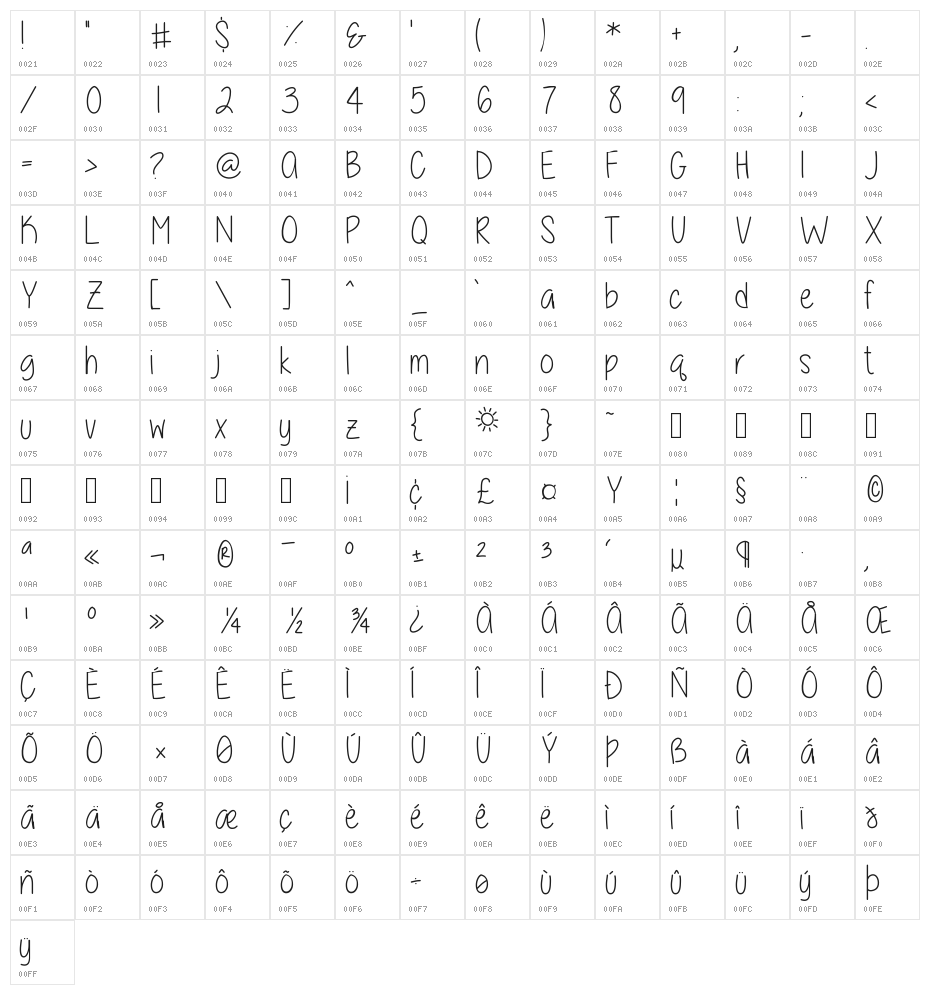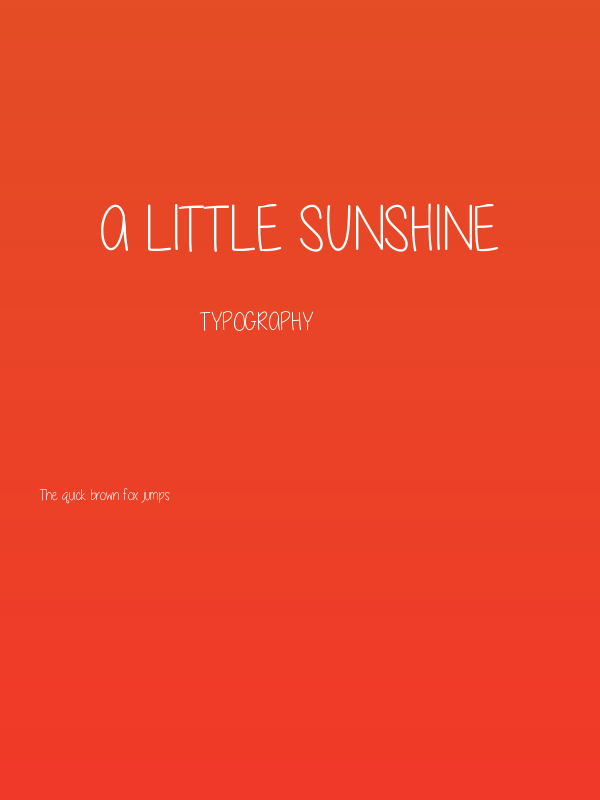
A little sunshine Font
A little sunshine Description
This playful and whimsical font features tall, narrow letters with a hand-drawn appearance. The characters have a consistent stroke width, giving them a clean and uniform look. The uppercase letters are slightly taller than the lowercase, adding a touch of elegance while maintaining a casual feel. The numbers and special characters follow the same style, ensuring a cohesive design throughout. This font is perfect for projects that require a friendly and approachable aesthetic, such as children's books, greeting cards, or playful branding.
| Proposed Projects | Ideal for children's books, greeting cards, playful branding, and casual invitations. |